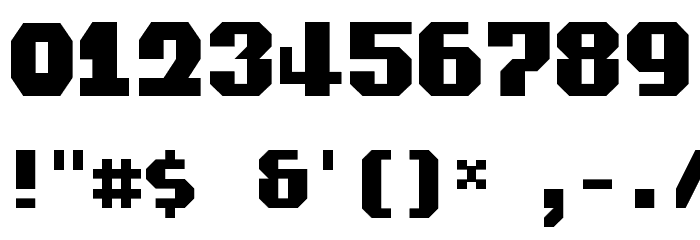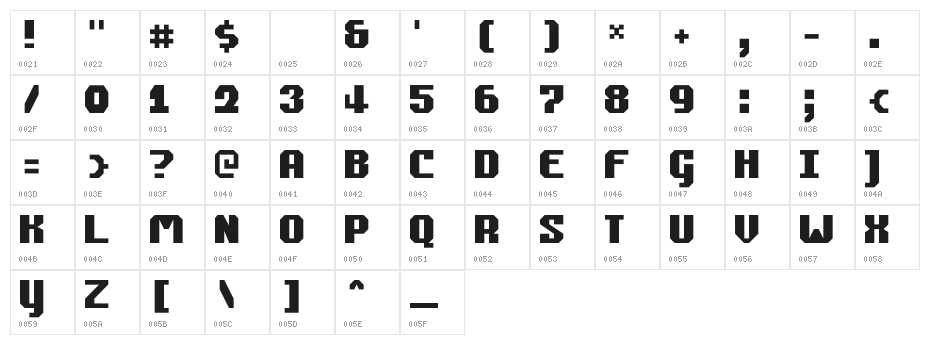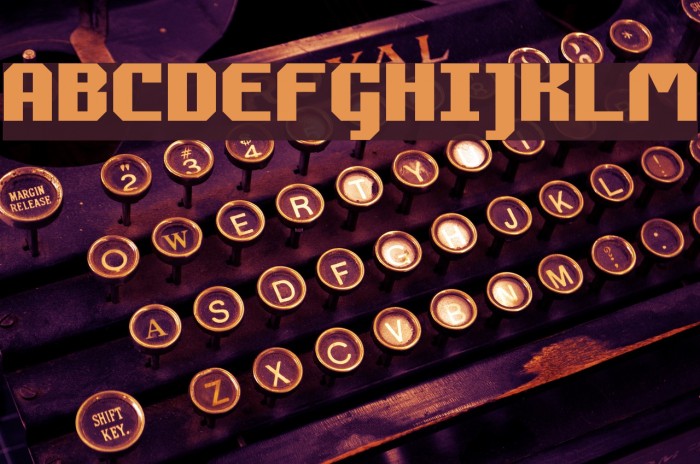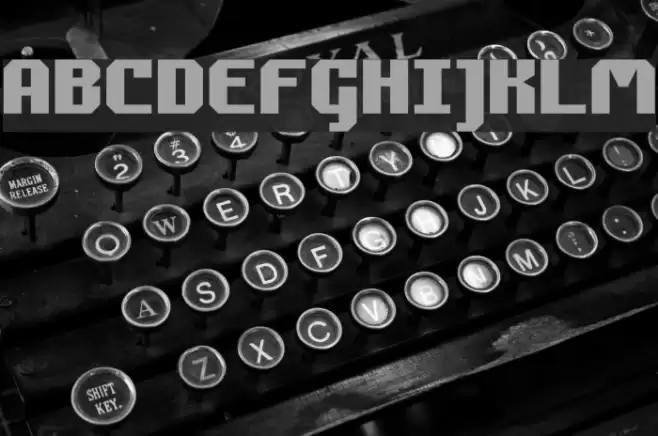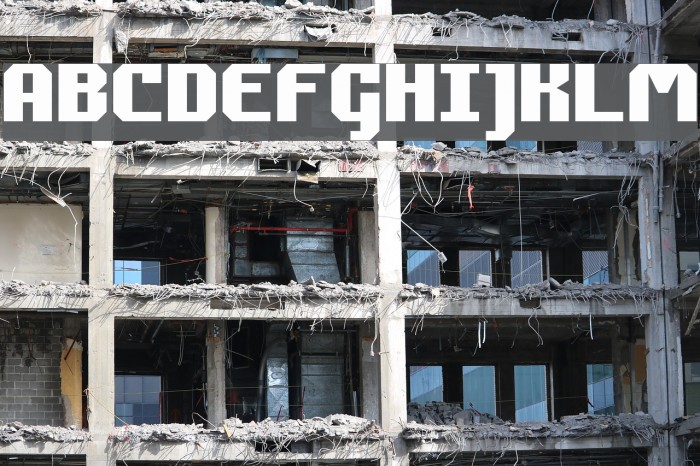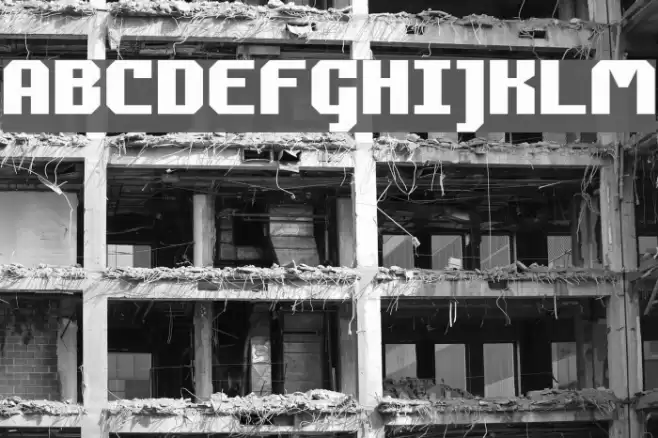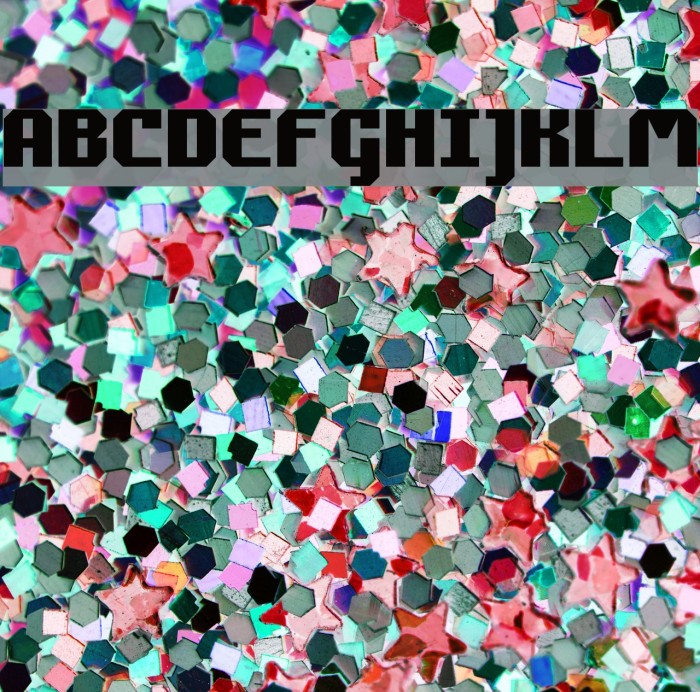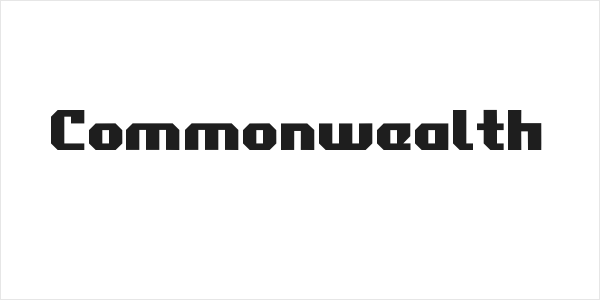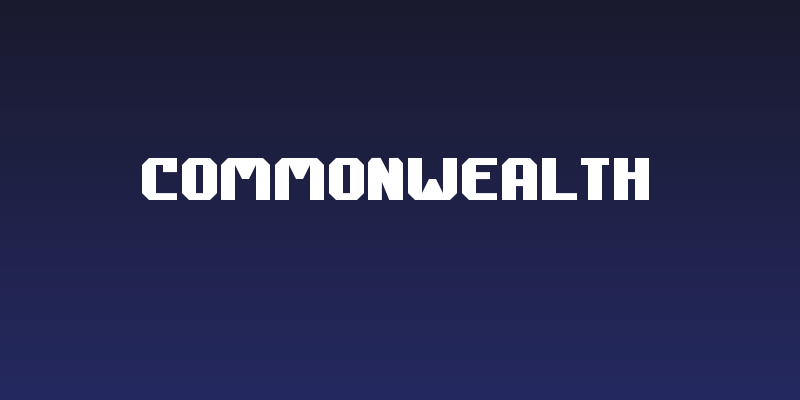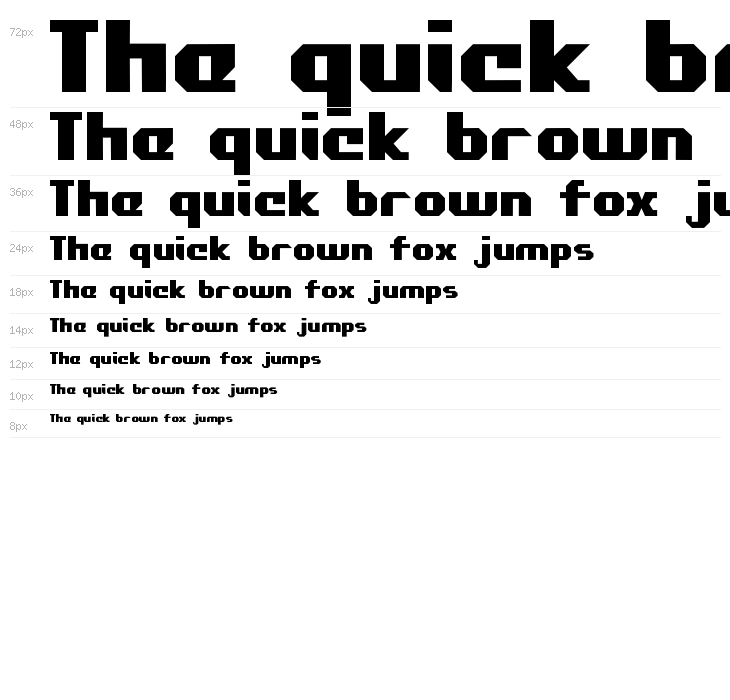
Commonwealth Font
Commonwealth Description
This font features a bold, geometric style with strong, angular lines and a distinct block-like appearance. The characters are uniformly wide, giving it a monospaced feel, though it is not strictly monospaced. The uppercase letters are particularly striking, with sharp edges and a modern aesthetic. The lowercase letters maintain the same geometric structure, providing consistency across the typeface. Numbers and special characters are equally bold and angular, ensuring readability and impact. This font is ideal for creating a strong visual presence, making it suitable for headlines and display purposes.
| Proposed Projects | Ideal for branding, posters, headlines, and any project requiring a strong, modern typeface. |